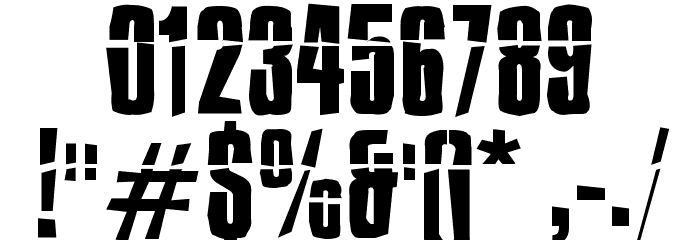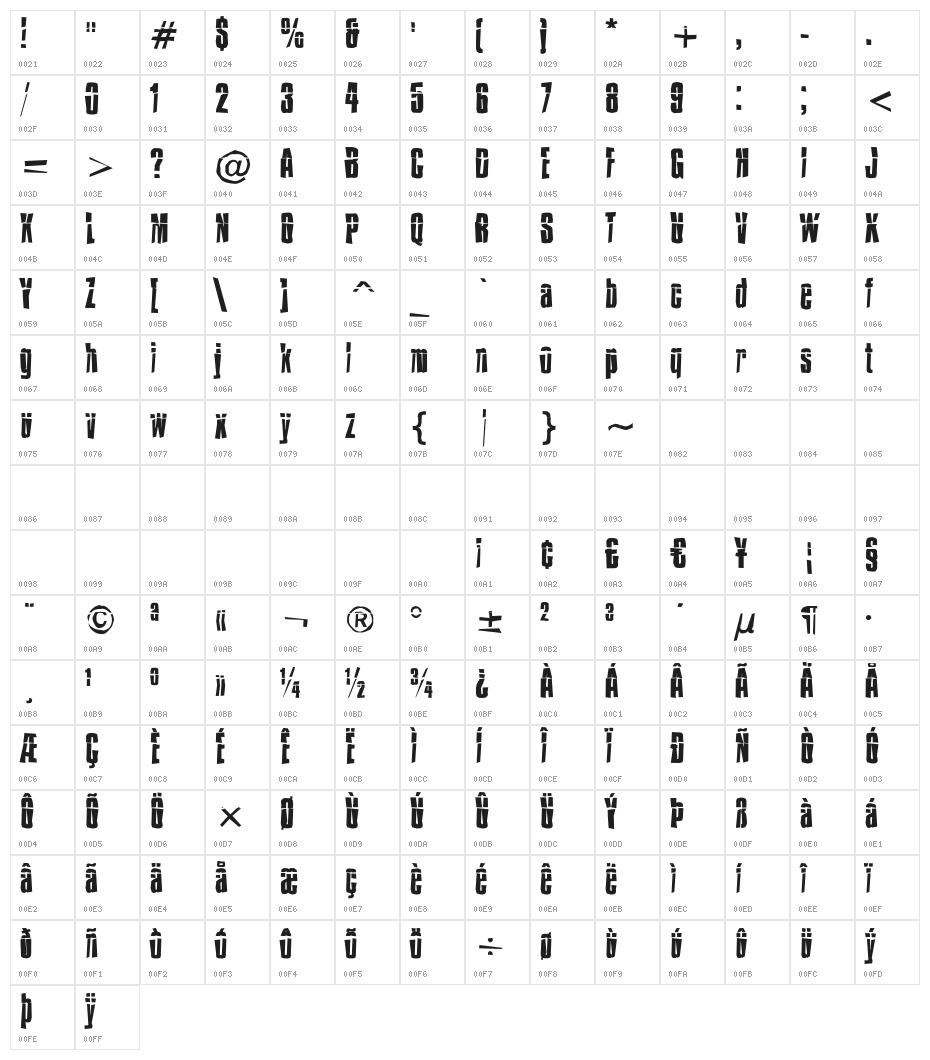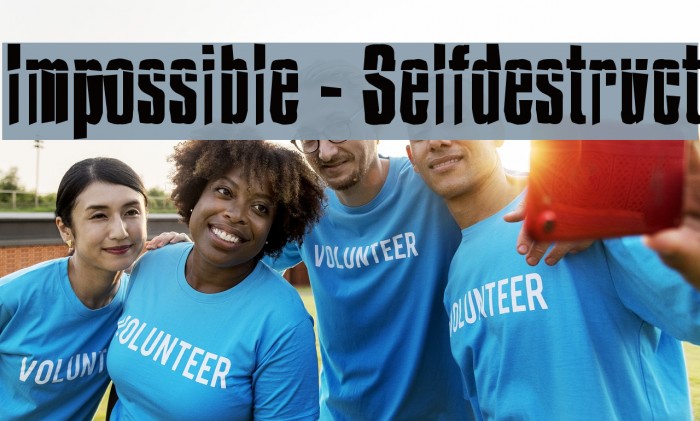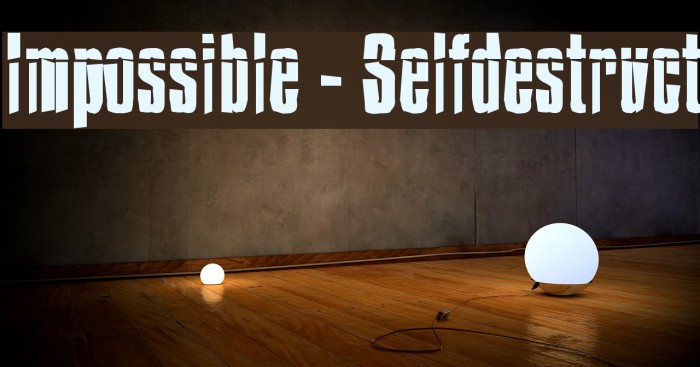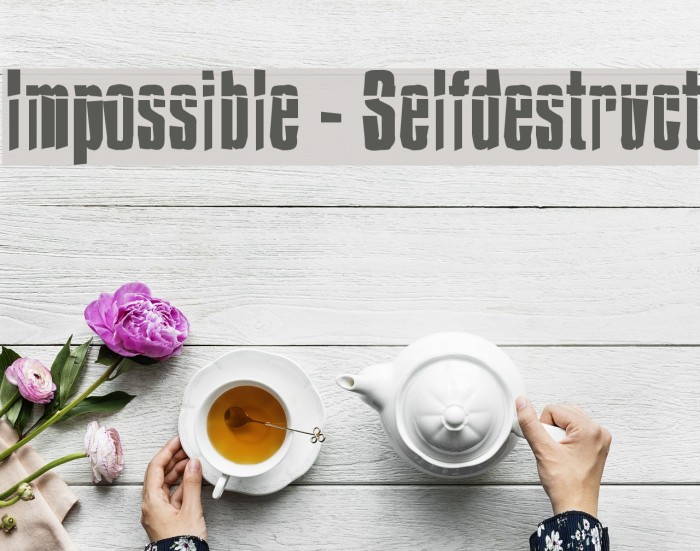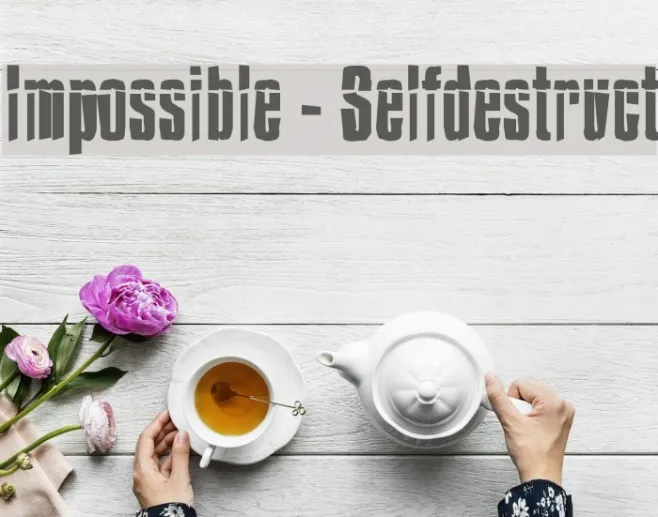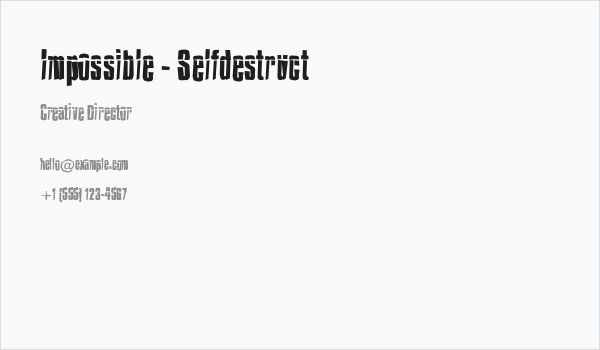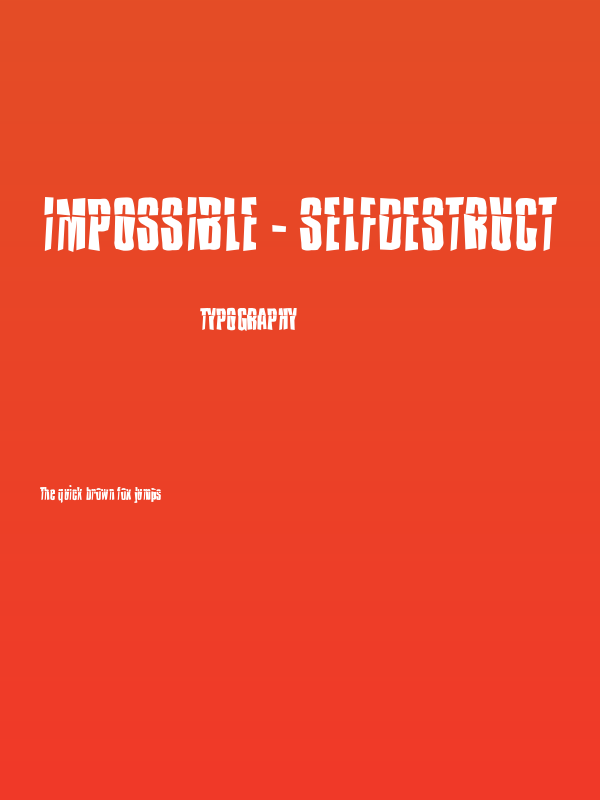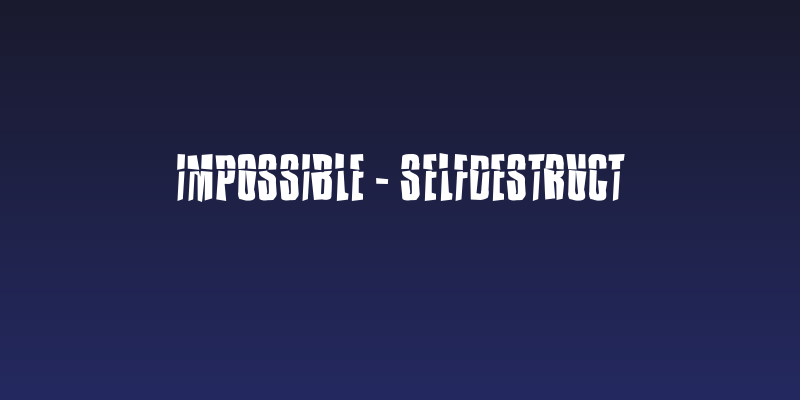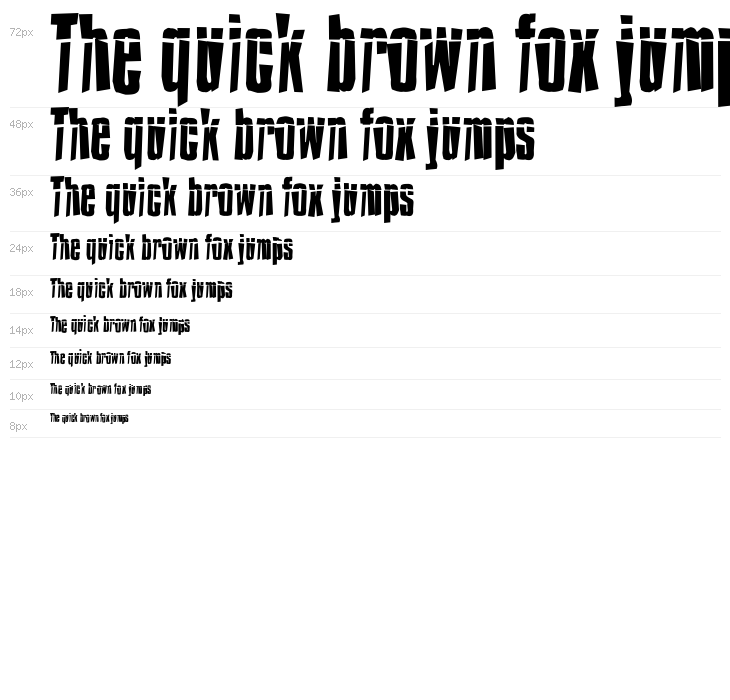
Impossible - Selfdestruct Font
Impossible - Selfdestruct Description
This font features a bold and dynamic design with a distinct, fragmented appearance. The characters are heavily stylized, giving them a unique, almost shattered look that creates a sense of movement and energy. The uppercase and lowercase letters maintain a consistent width, while the numbers and special characters follow the same fragmented style. The overall impression is one of boldness and modernity, making it suitable for projects that require a strong visual impact.
Proposed ProjectsIdeal for posters, album covers, branding, and any project needing a striking, modern aesthetic.